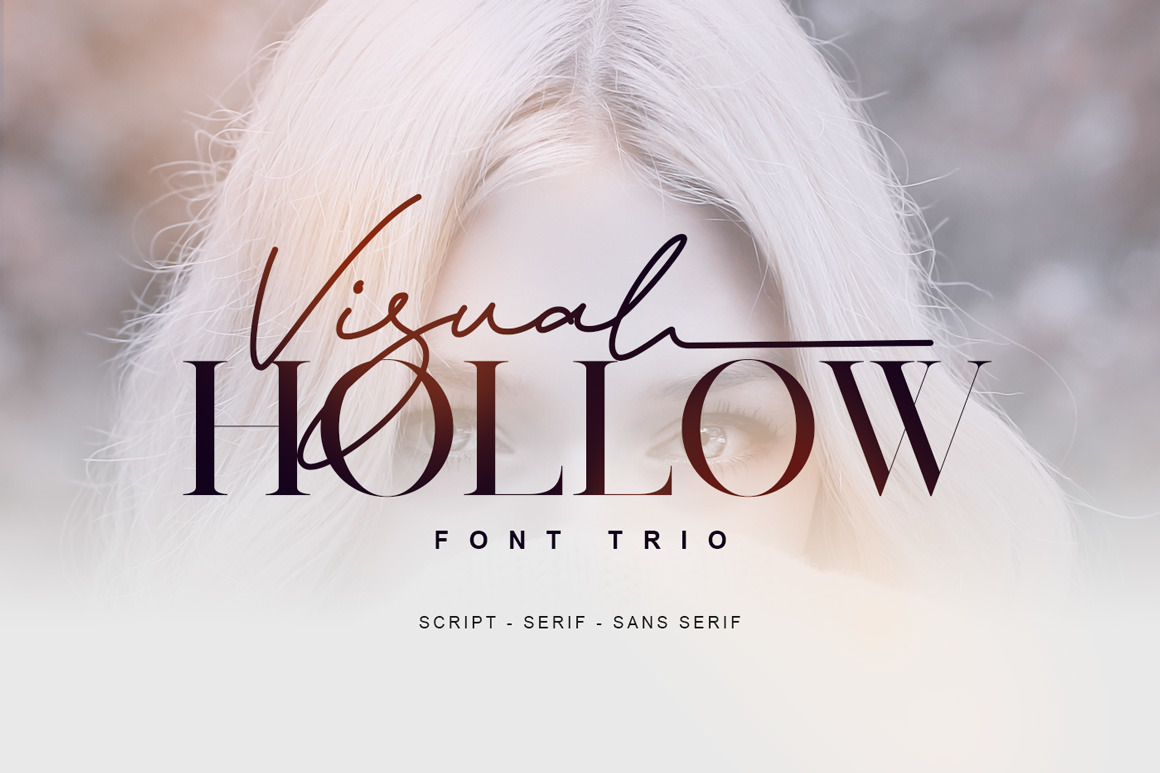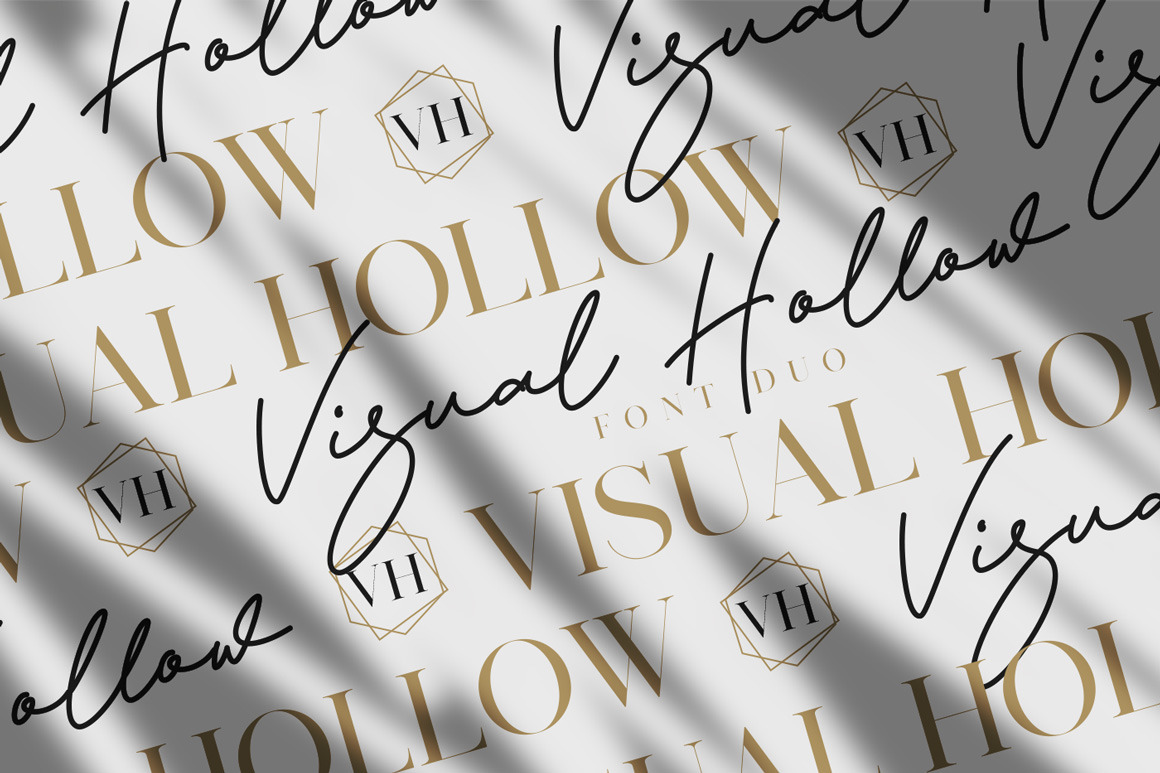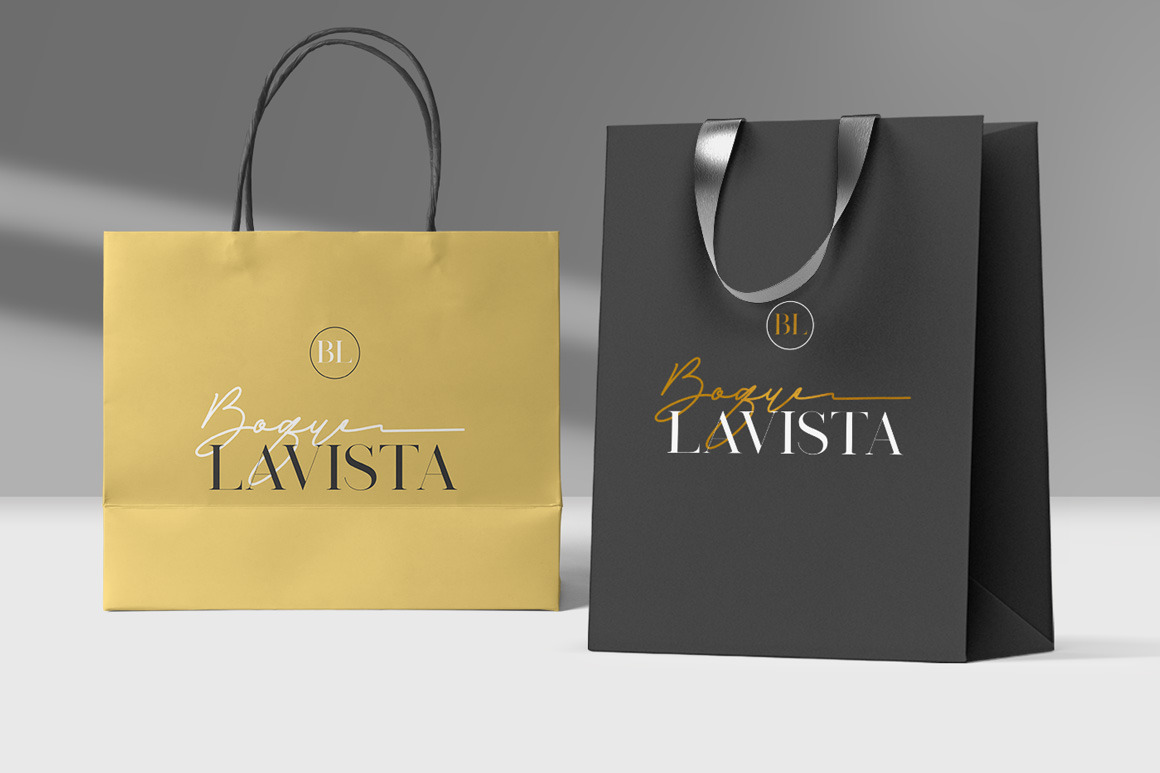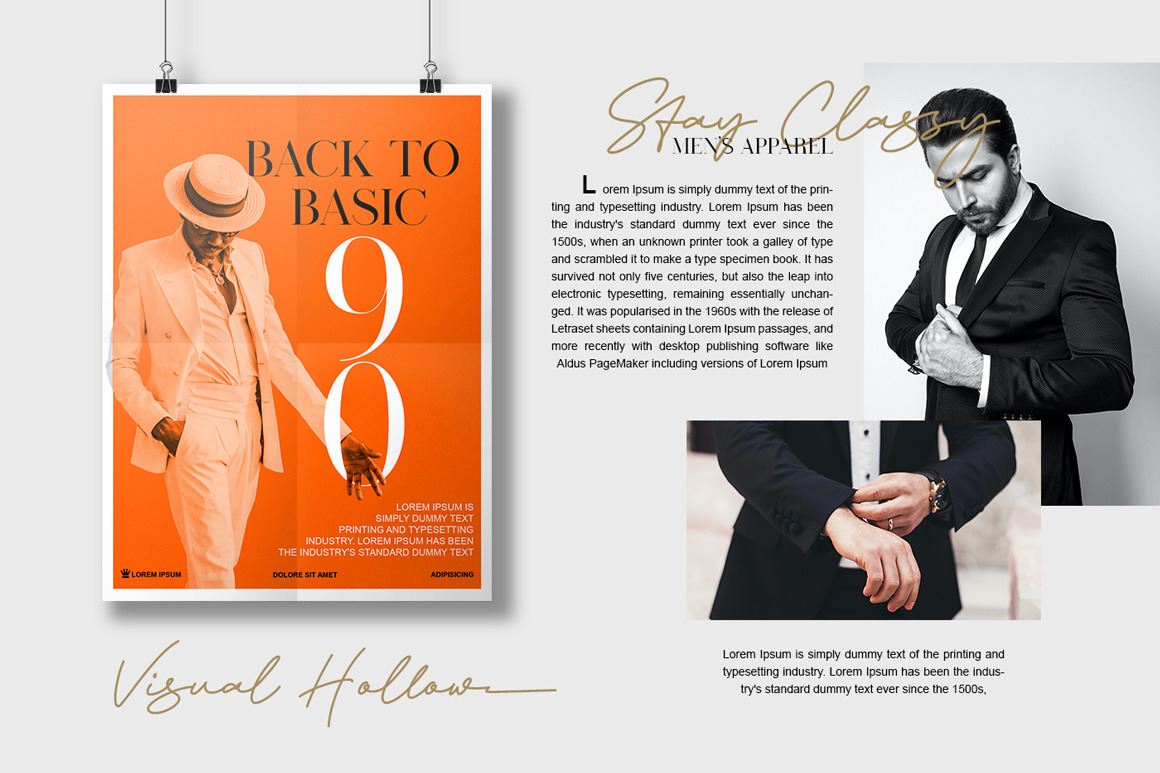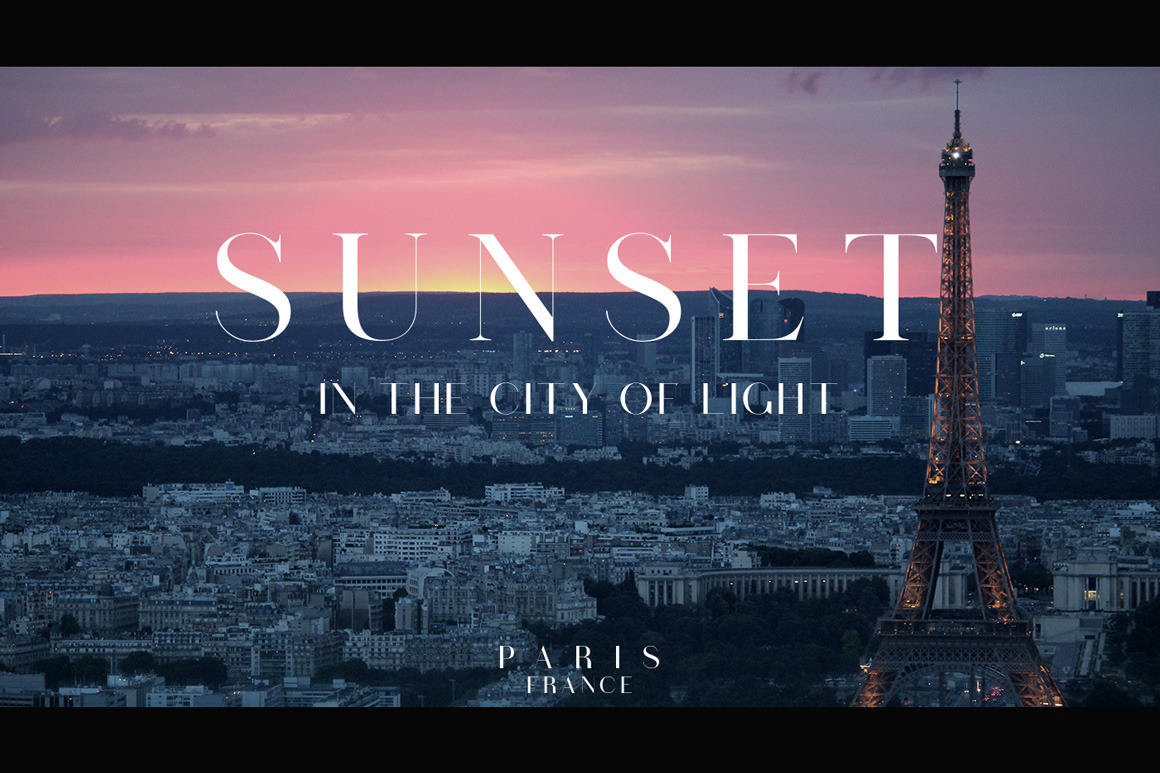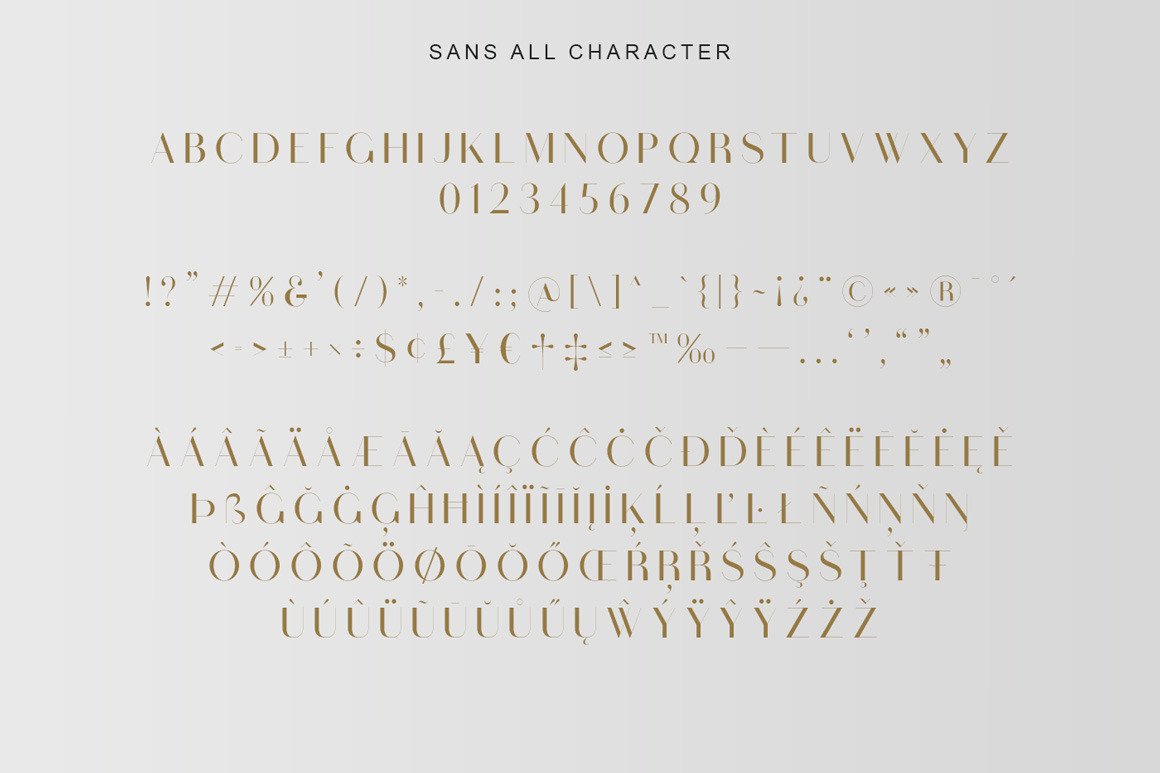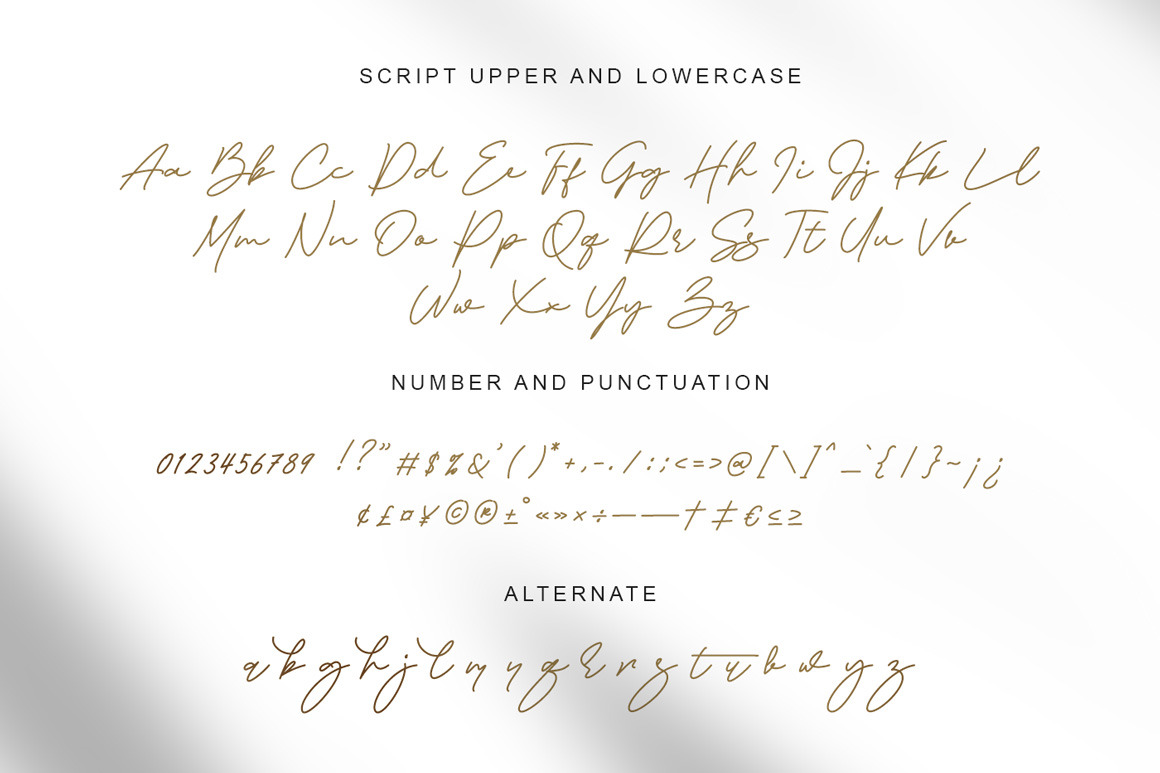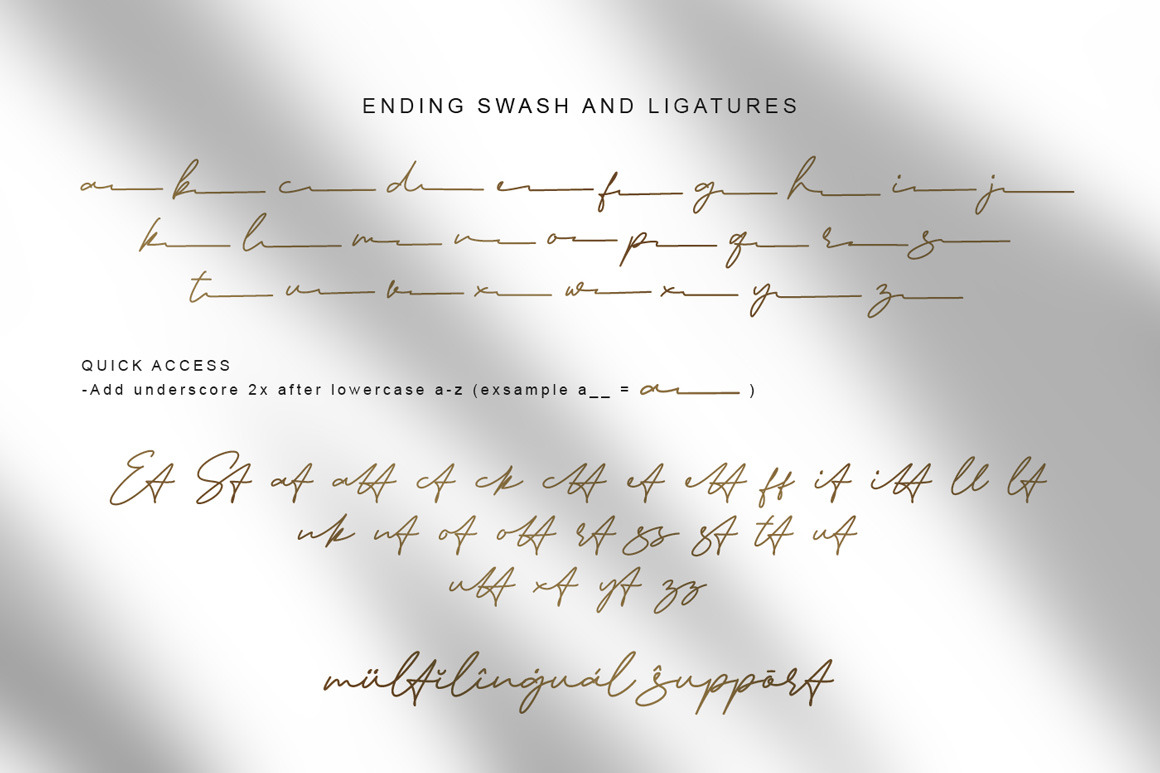
Visual Hollow - Font Trio
Visual Hollow Font Trio, perfect for product packaging, branding project,
magazine, social media, and much more. Explore the best your side.
FEATURES
-Swashes
-Alternate
-Serif, Sans & Script
-Uppercase and Lowercase letters
-Numbering and Punctuations
-Also Multilingual Support